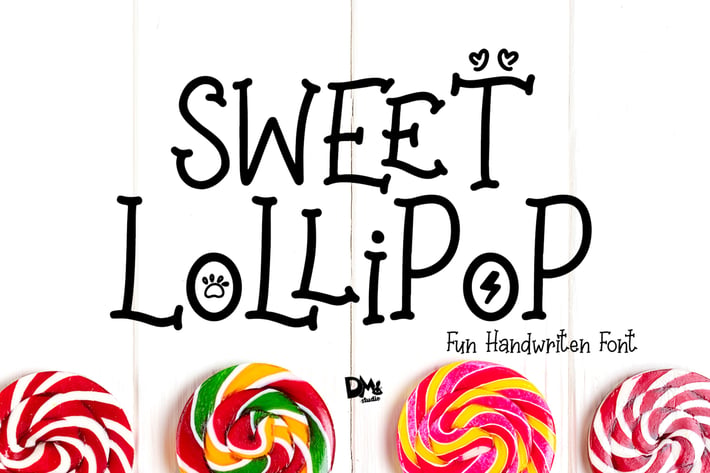
Sweet Lollipop - Fun Handwritten Font
Sweet Lollipop Fun Handwritten Font
Sweet Lollipop is a fun, quirky, and unique Handwritten Font. Mix the case and activate the ligature feature to make your design more catchy!
- Access Doodles by typing 0-9
- Symbols and Punctuation
- Ligatures (Ar, At, Cr, Ct, Er, Ee, Et, Es, Ll, La, Oo, Pp, Rr, Ss, Tt)